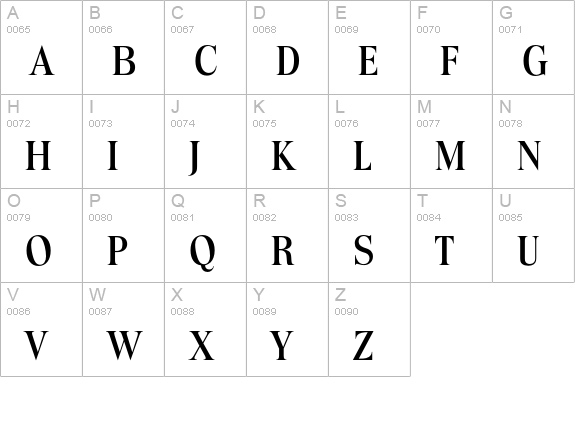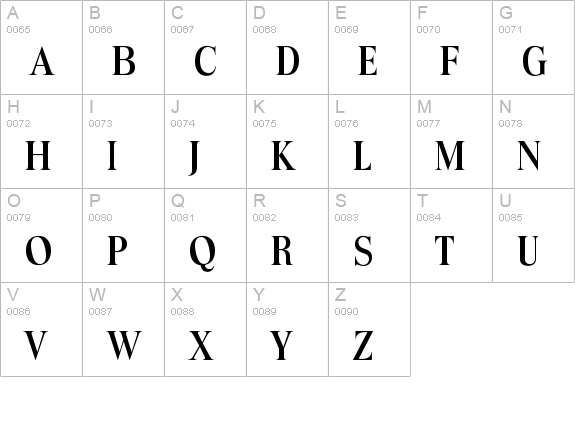
Toledo-Medium is a balanced, medium-weight variant in the Toledo typeface family \xE2\x80\x94 well suited to sub-headlines, navigation, and balanced editorial work.
Toledo-Medium font is an exquisite and versatile typeface that effortlessly combines classic elegance with a modern twist. With its balanced proportions and unique letterforms, this font captures attention and brings a touch of sophistication to any project. Designed with meticulous attention to detail, Toledo-Medium is perfect for a wide range of design applications, including branding, advertisements, editorial design, packaging, and much more. Its clean lines and legible letterforms ensure readability in both small and large sizes, making it an ideal choice for both print and digital media. What sets Toledo-Medium font apart is not only its remarkable design, but also its accessibility. This font is freely available to download at FontsMarket.com, allowing designers and enthusiasts alike to easily incorporate it into their projects without any restrictions. Whether you're a professional designer or a hobbyist, Toledo-Medium offers a high-quality, professional-grade font option that doesn't break the bank. With its extensive character set, including punctuation marks, numerals, and multilingual support, Toledo-Medium provides versatility and flexibility for designers working in various languages and typographic styles. Its timeless aesthetic and contemporary appeal make it a go-to choice for those seeking a font that effortlessly balances tradition and innovation. Download Toledo-Medium font today from FontsMarket.com and experience the freedom to create stunning designs that leave a lasting impression. Elevate your typography game and showcase your creativity with this remarkable font – a true gem in the world of typefaces.